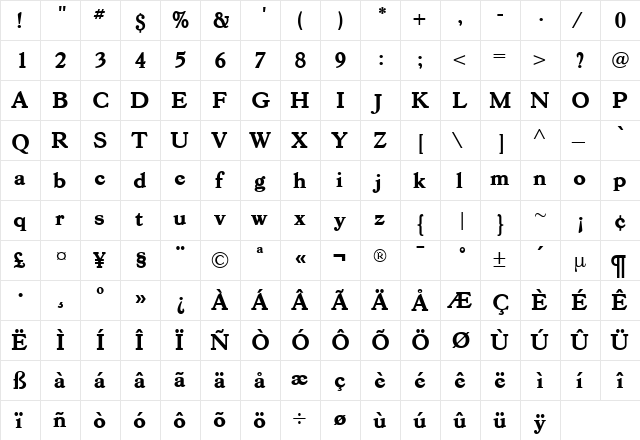
GoudY38ExtraBold Medium
Design Context for GoudY38ExtraBold Typeface
GoudY38ExtraBold offers clean, dependable letterforms without strong stylistic allegiance, making it a practical choice for designers who need flexibility. The heavy weight commands attention and anchors typographic hierarchies.
Pro Tip: Use GoudY38ExtraBold in both headline and body roles to test its range before committing to a single application.